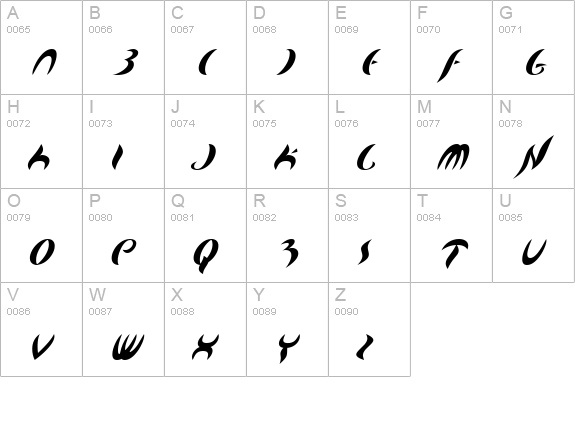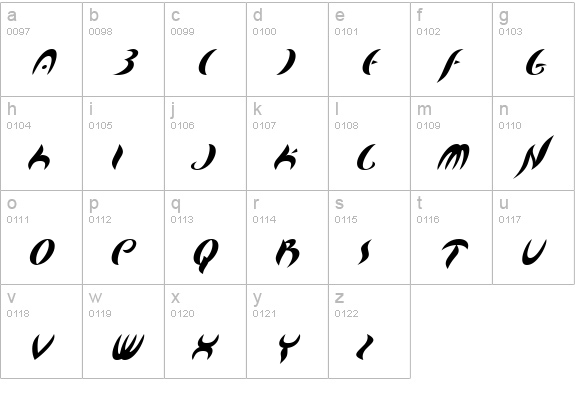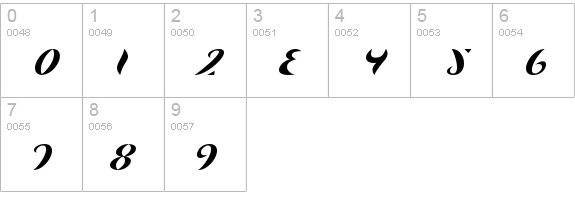
Map Of You Font Details
Introducing the captivating Map Of You font, a stunning typeface that is sure to leave a lasting impression. With its elegant and modern design, Map Of You effortlessly blends classic charm with a contemporary twist, making it the perfect choice for a wide range of creative projects. This versatile font features beautifully crafted letterforms that exude sophistication and style. Each character is meticulously designed with intricate details and precise curves, creating a harmonious balance between elegance and legibility. Map Of You brings a touch of refinement to any design, whether it be for branding, logo design, editorial work, or even personal projects. One of the most remarkable aspects of Map Of You is not only its exceptional quality, but also the fact that it is freely available to download at FontsMarket.com. This means that you can easily access this extraordinary font and incorporate it into your designs without any cost or restrictions. It's a rare opportunity to enhance your creative endeavors with a font that offers both aesthetic appeal and accessibility. Map Of You is designed to make a statement, to evoke emotions, and to captivate audiences. Its seamless compatibility with various design software and applications ensures a smooth and effortless integration into your workflow. Whether you're a professional designer, a passionate artist, or simply someone looking to add a touch of elegance to your projects, Map Of You is the perfect choice. Unleash your creativity, express your unique vision, and make a lasting impression with Map Of You. Its timeless appeal and freely available download make it an invaluable asset for any designer or creative enthusiast. Transform your designs into masterpieces and let Map Of You guide you on an unforgettable journey of self-expression and innovation.